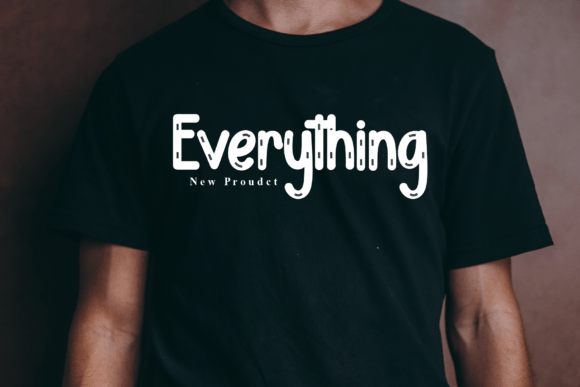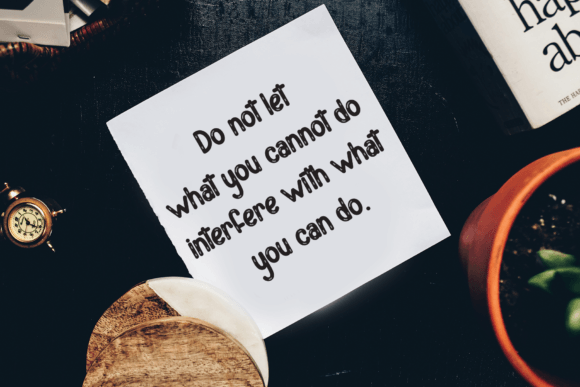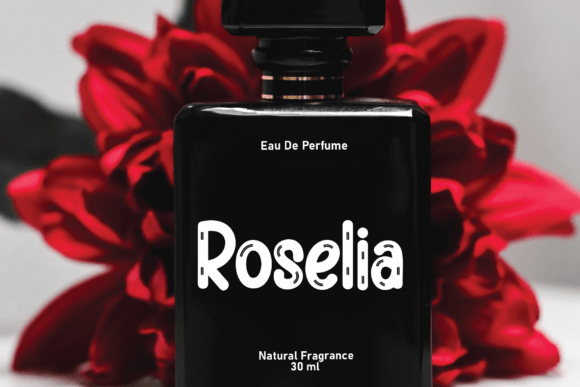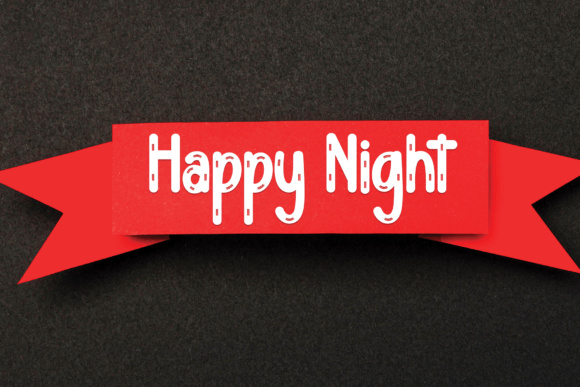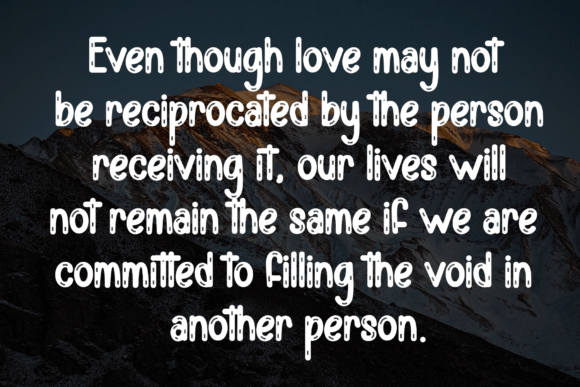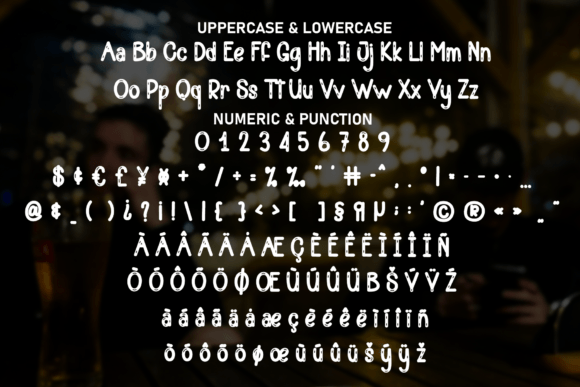
Discover the Charm of Caffe Midnight Font
Have you ever been in the middle of a design project, and suddenly, you’re stuck on finding the perfect font? I recall a particularly frustrating moment when a client asked for a whimsical yet elegant font for their wedding invitation. After hours of searching, I stumbled upon Caffe Midnight Font, and it was love at first sight! In this article, I’ll share my experience with this delightful handwritten display font and explore its features, usage, and alternatives.
A Personal Review of Caffe Midnight Font
- ✨ Adorable and whimsical aura that adds charm to any design
- ✅ Beautifully crafted to radiate a playful yet elegant vibe
- 🎉 Perfect for wedding invitations, greeting cards, and other creative projects
- 💫 Jovial nature that encapsulates a touch of merriment
While Caffe Midnight Font is an excellent choice for many projects, there are a few things to keep in mind:
- 🤔 Limited use of uppercase letters, which might require creative workarounds
- ⚠️ Not ideal for body text or long-form content due to its decorative nature
A Practical Guide to Using Caffe Midnight Font
- Experiment with OpenType features, such as stylistic alternates, to add visual interest
Exploring Alternatives to Caffe Midnight Font
The Story Behind Caffe Midnight Font
Caffe Midnight Font was designed with the intention of capturing the warmth and charm of a handwritten font. The designer aimed to create a font that would evoke feelings of joy and playfulness, while still maintaining an air of elegance. The result is a font that is both versatile and delightful.
Q: What type of projects is Caffe Midnight Font best suited for?
A: Caffe Midnight Font is perfect for wedding invitations, greeting cards, and other creative projects that require a touch of whimsy and elegance.
Q: Is Caffe Midnight Font available in multiple languages?
A: Caffe Midnight Font may not support all languages, but it does include a range of characters and glyphs to accommodate various design needs.